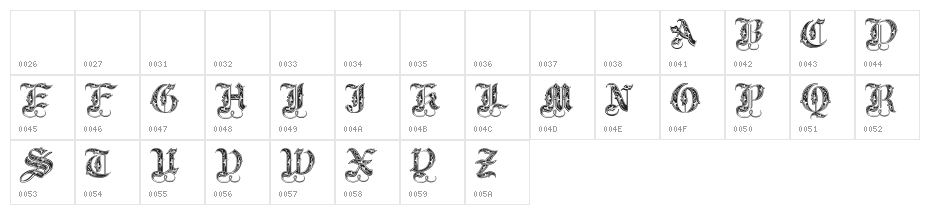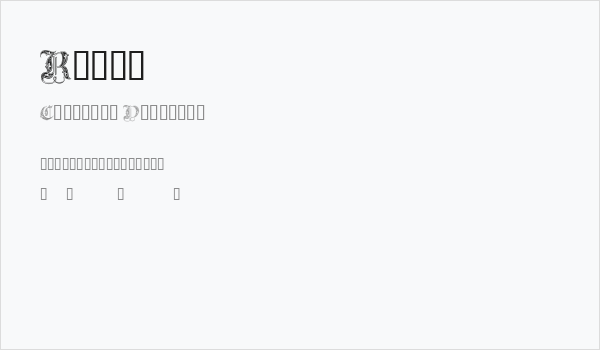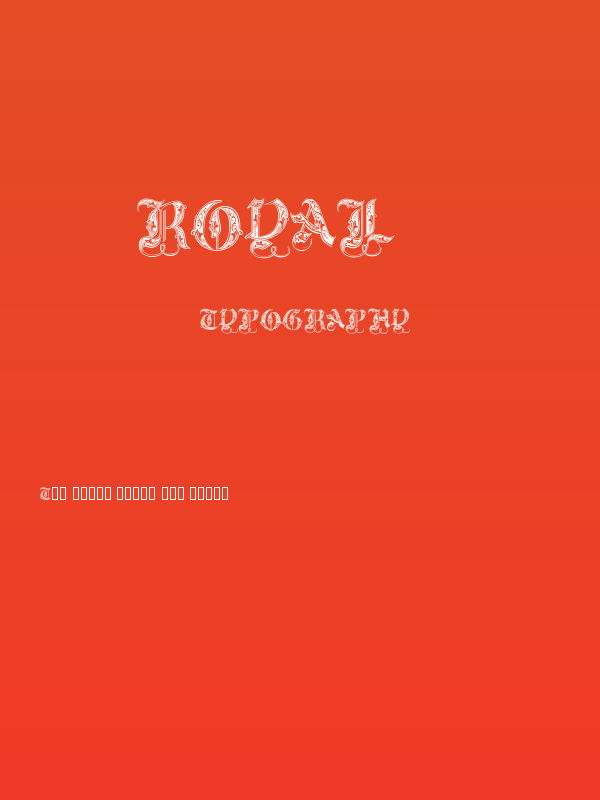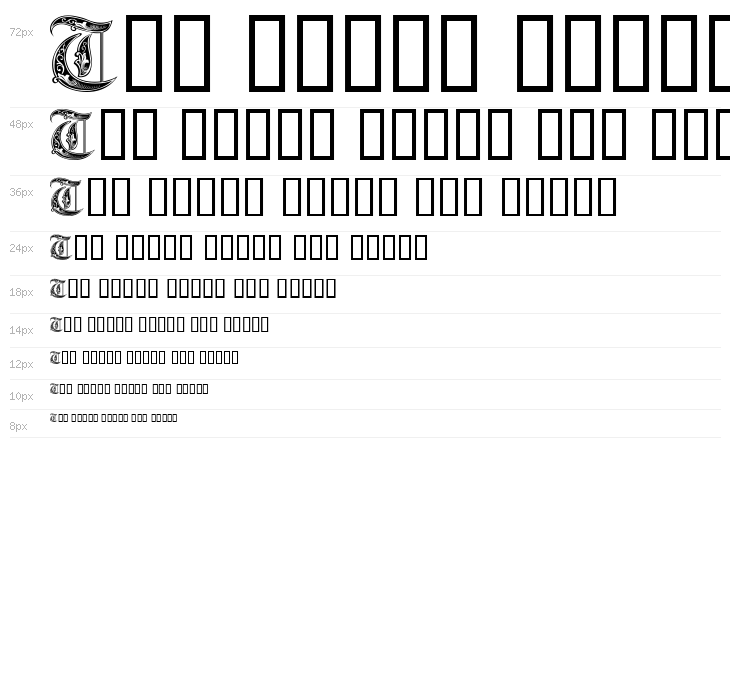
Royal2 Font
Royal2 Description
This font exudes a regal and ornate style, reminiscent of traditional calligraphy with intricate details and flourishes. Each character is embellished with decorative elements, giving it a luxurious and sophisticated appearance. The uppercase letters are particularly elaborate, featuring bold strokes and elaborate serifs that enhance their majestic look. The font's overall design is highly decorative, making it suitable for projects that require a touch of elegance and grandeur. Its intricate details and high contrast between thick and thin strokes make it stand out, capturing attention with its artistic flair.
| Use Case | Logos, Headlines |
| Proposed Projects | Ideal for wedding invitations, luxury branding, certificates, and historical-themed designs. |